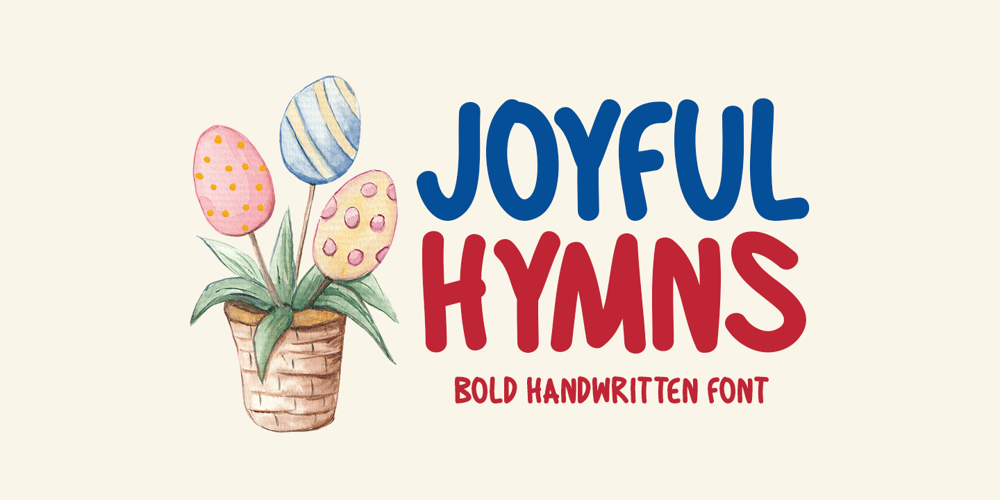
Joyful Hymns Font Family was designed by Md Shohail Bhuian and published by Seemly Fonts. Joyful Hymns contains 1 styles and family package options. Joyful Hymns is a vibrant display font radiating boldness and personality. With its versatile nature, this typeface seamlessly integrates into a myriad of design applications, including stationery, logos, apparel, printed materials, web elements, and more. Elevate your designs with their captivating charm and ensure that your visual communication leaves a lasting impression.